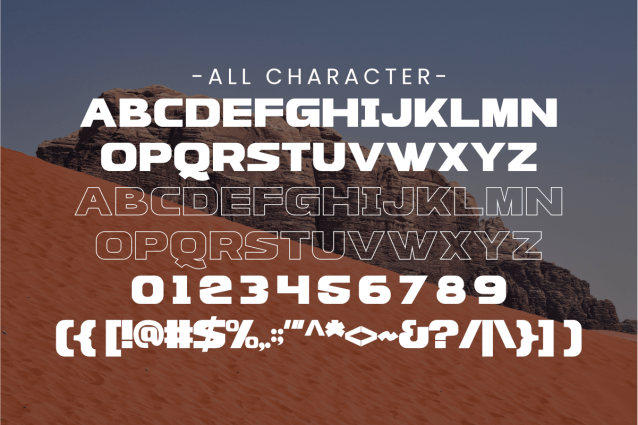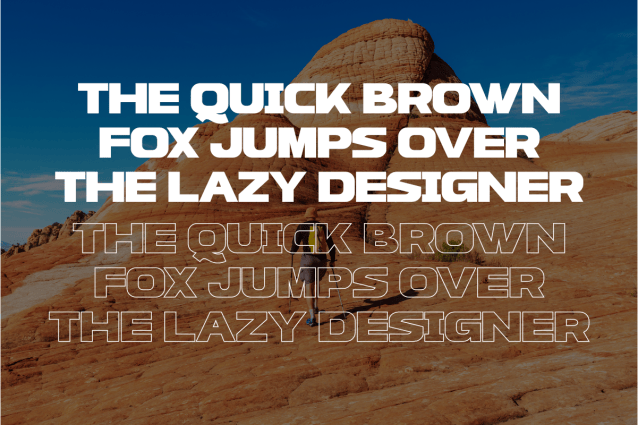
Inspire Sans Serif Font
Introducing Inspire, a modern sans serif font perfect for adding a bold and contemporary touch to your creative projects! Ideal for crafters and graphic designers, this versatile typeface brings a strong and impactful feel to any design. Elevate your creations with Inspire today!